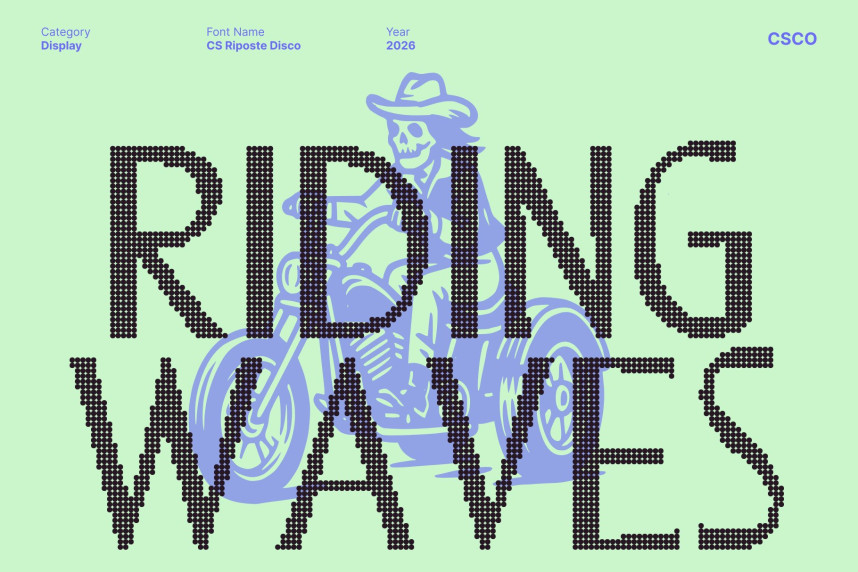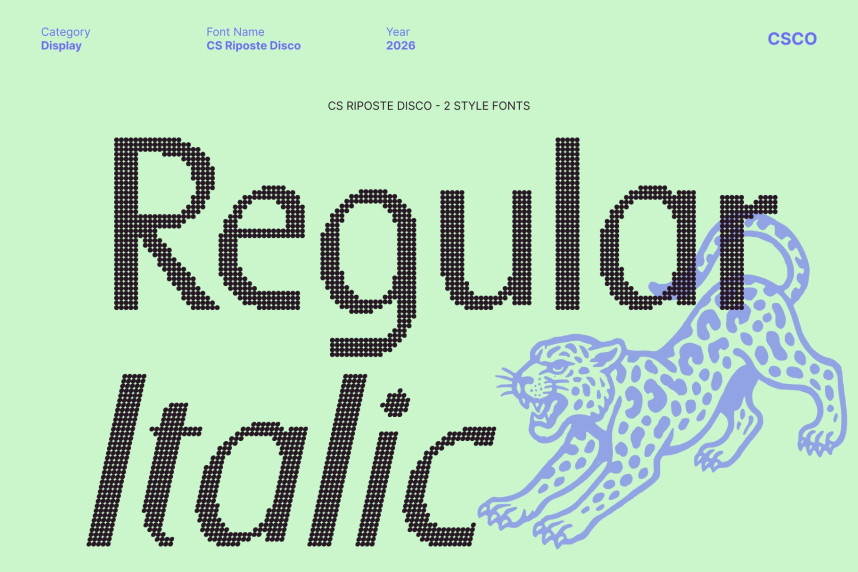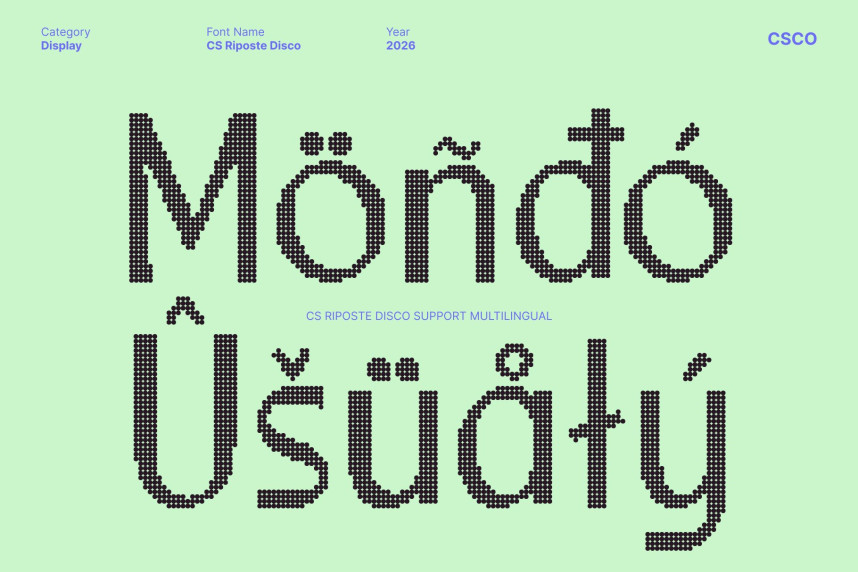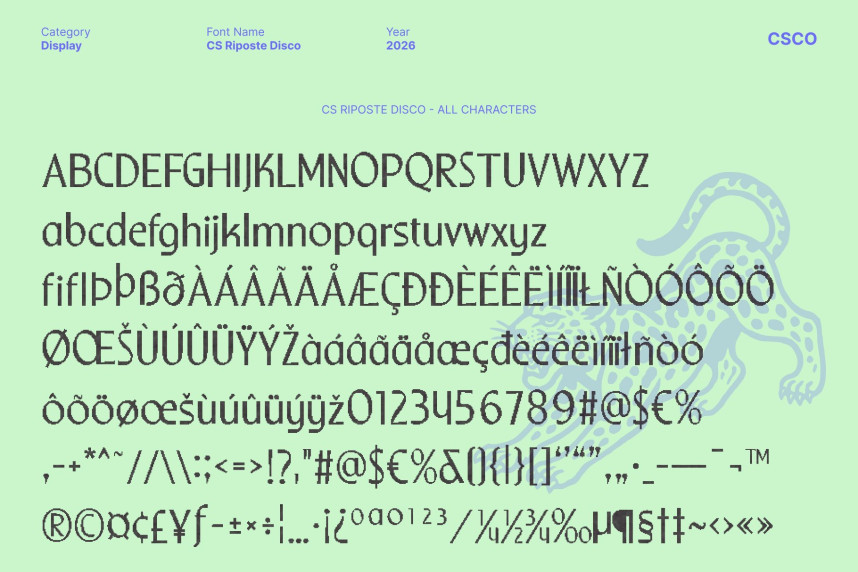
CS Riposte Disco Font
CS Riposte Disco Font – Fresh Modern Clarity with Nightlife Confidence Modern Sans Serif with Disco-Infused Style. This is a sleek, modern sans serif font that merges professional clarity with the vibrant energy of disco-inspired design. Its well-balanced letterforms and refined proportions ensure readability and elegance, while subtle rhythmic curves and playful angles give it a lively, confident presence perfect for designs that need style, movement, and impact.